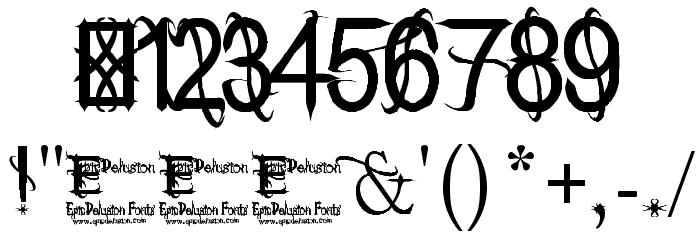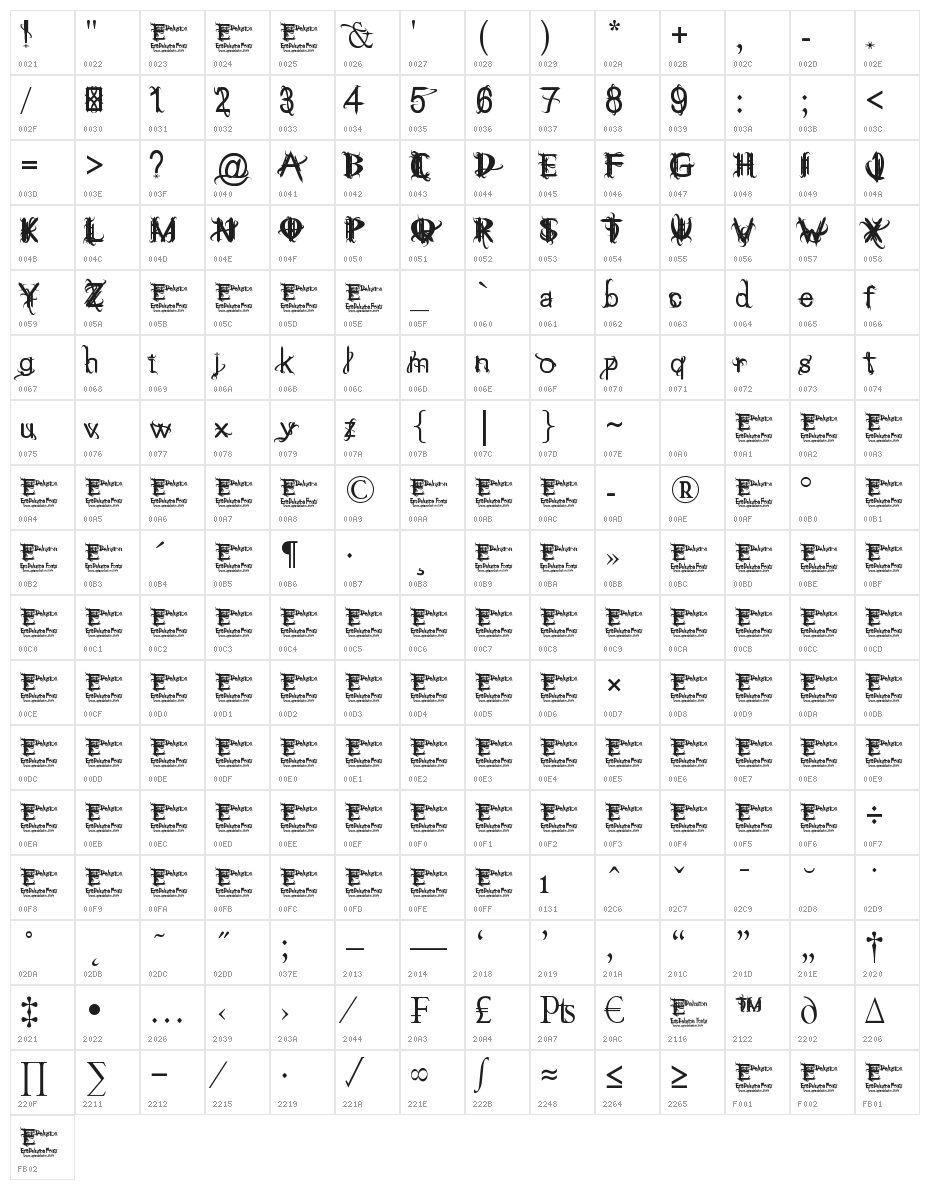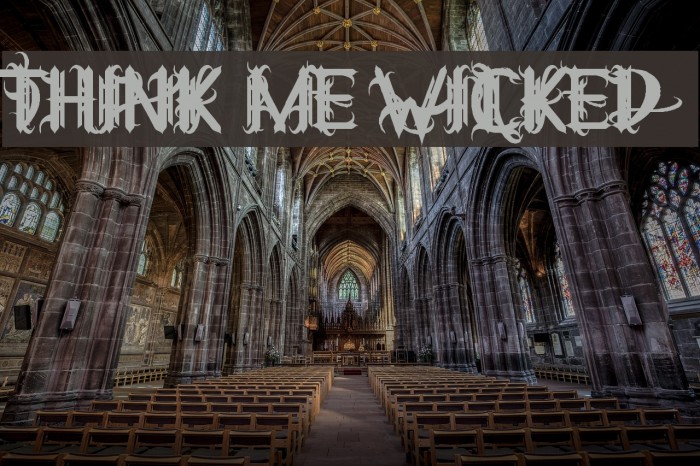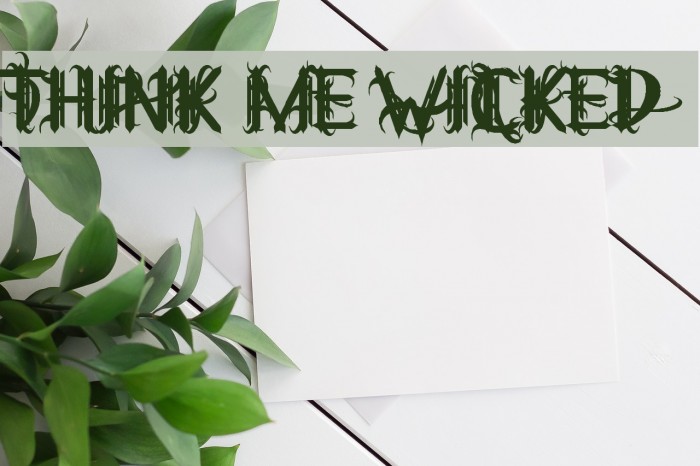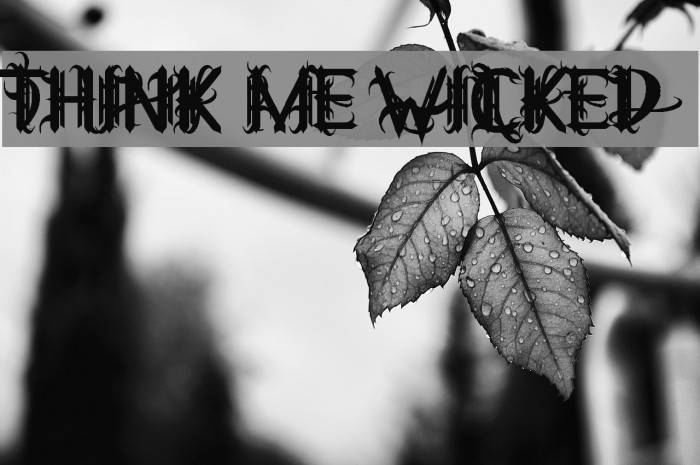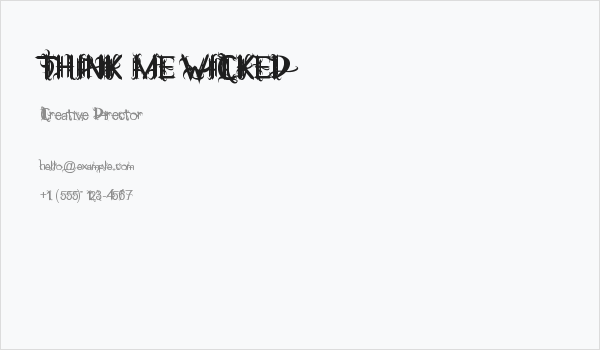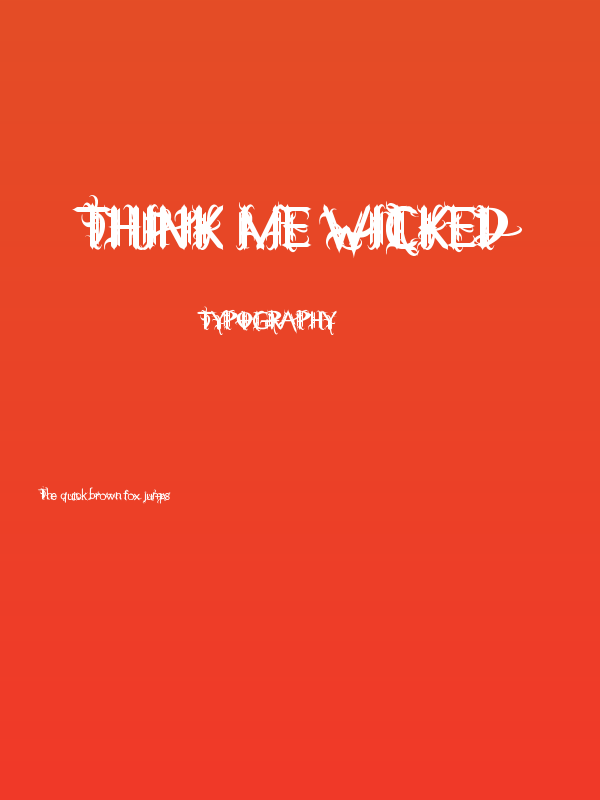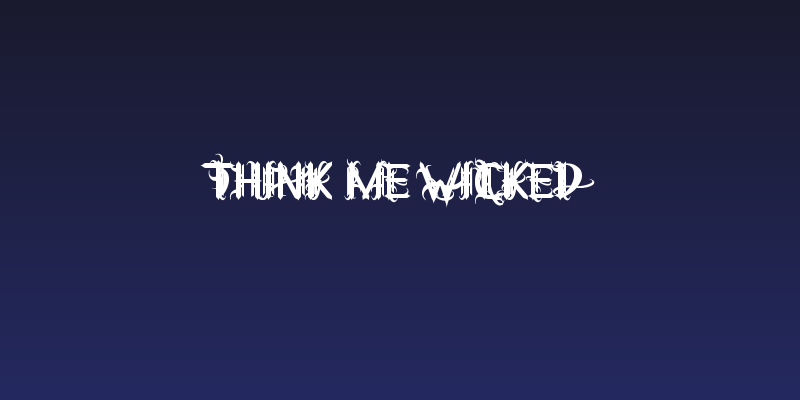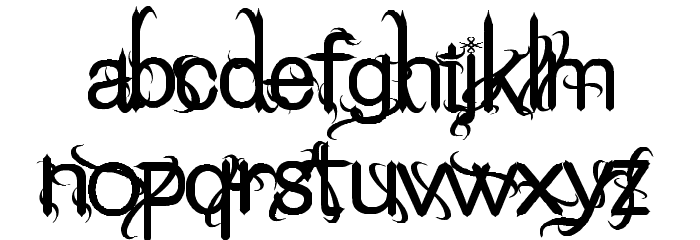
THINK ME WICKED Font
THINK ME WICKED Description
This font features a highly decorative and intricate design, characterized by sharp, thorn-like extensions and elaborate flourishes that give it a gothic and edgy appearance. The uppercase letters are particularly ornate, with each character displaying unique embellishments that create a sense of movement and drama. The lowercase letters maintain a similar style but are slightly less complex, allowing for better readability. Numbers and special characters follow the same thematic design, ensuring consistency across all glyphs. This font is ideal for projects that require a bold and striking visual impact, such as posters, album covers, or themed event invitations.
| Overall Style | Gothic, Decorative |
| Proposed Projects | Ideal for gothic-themed designs, album covers, posters, and event invitations. |